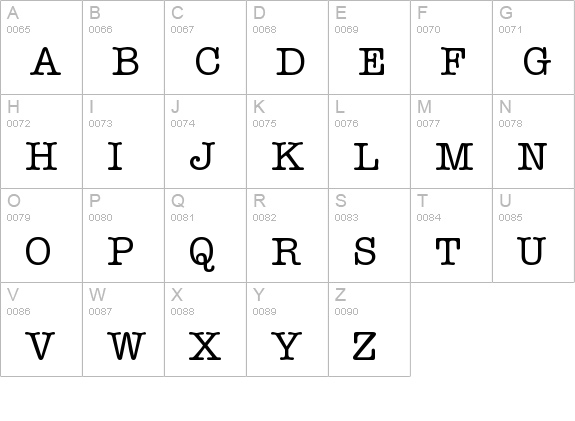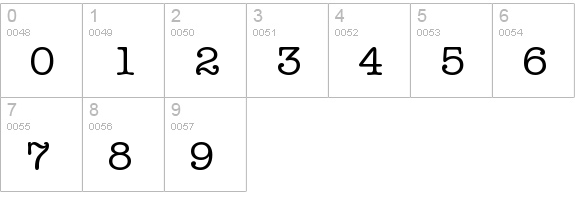
ModernTypewriter-Regular is the standard, neutral variant in the ModernTypewriter typeface family \xE2\x80\x94 well suited to general body text, paragraphs, and standard typographic work.
ModernTypewriter-Regular font is a versatile and stylish typeface that combines the classic aesthetics of a typewriter with a modern twist. Its clean lines and elegant design make it perfect for a wide range of projects, from branding to editorial design. The timeless appeal of this font is sure to elevate any piece of work and give it a sophisticated touch. And the best part? ModernTypewriter-Regular font is completely free to download at FontsMarket.com. You can easily access this high-quality font and enhance your projects without any cost. Don't miss out on the opportunity to add this beautiful typeface to your collection and take your designs to the next level. Download ModernTypewriter-Regular font today and start creating stunning visuals with ease.